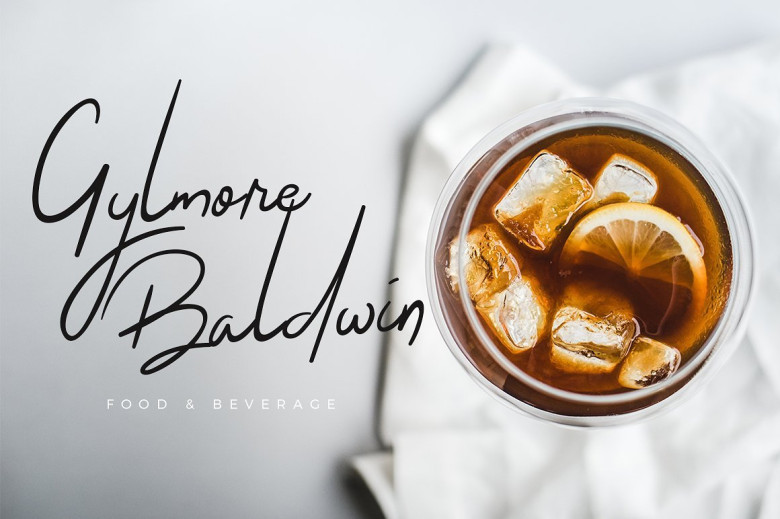
The Jacklyn Signature Font
You do not have to spend too much time creating custom fonts for your project. If you are looking for a font signature, it’s here! Introducing The Jacklyn. The Jacklyn was designed and shares by Creatype Studio Co.. The Jacklyn script is modern and sophisticated styling font which perfect for branding, logo, photography and signature. It is so elegant, classy, strong and beautiful.